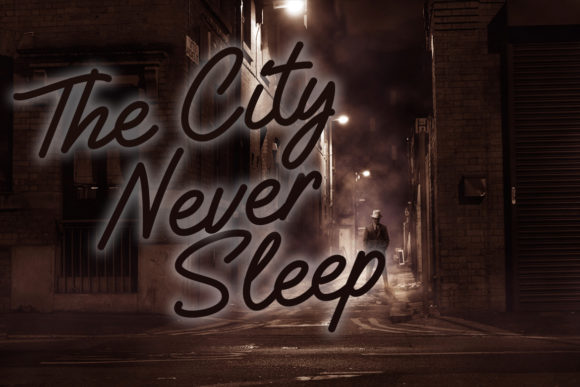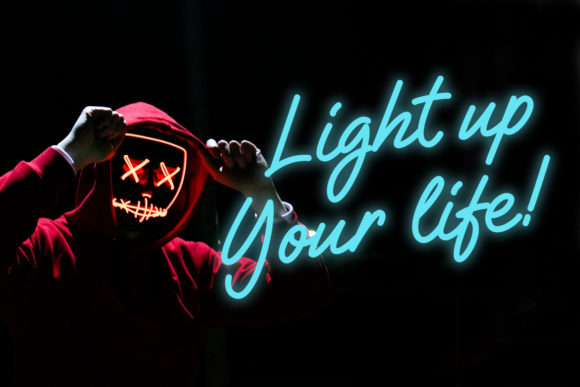
About Gilligan Shutter Font
The Gilligan Shutter is a sophisticated monoline signature font. It has a bold style that will give your designs a natural feel.
It’s perfect for branding projects, logos, wedding designs, social media posts, advertisements, product packaging, product designs, labels, photography, watermarks, invitations, stationery and every other design which needs a handwritten touch.